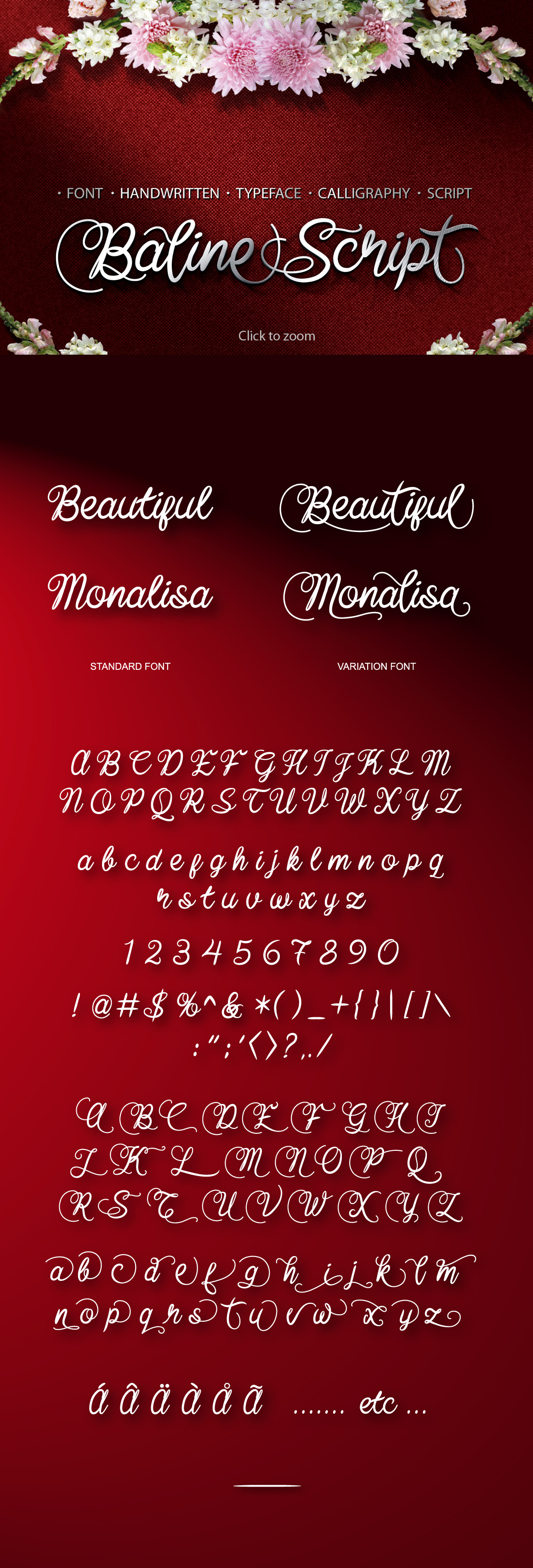
Baline Script Typeface + Bonus
Baline script font is italic spontaneous decoration typeface clean looks handwiritten with artistic brush. This font have many glyphs alternative variation. 3 capital variation letters and 5 small variation letters.